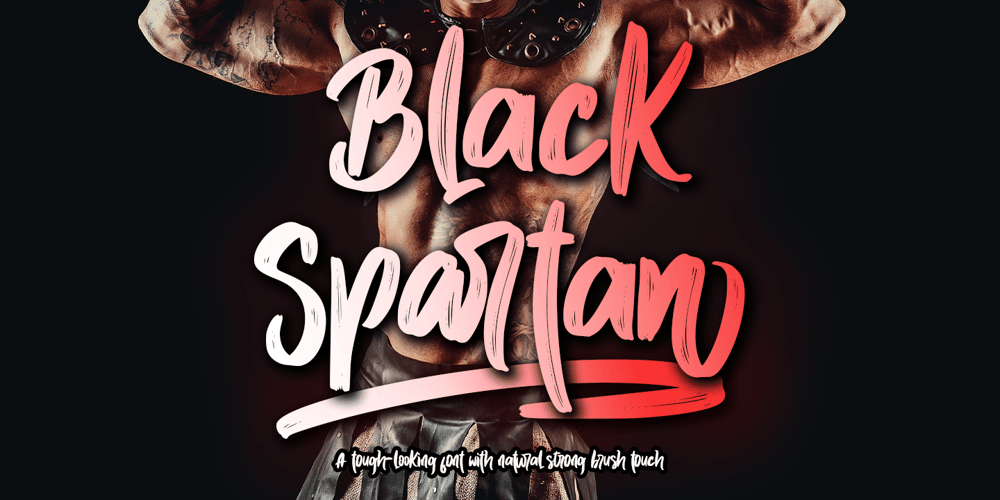
Black Spartan Font Family was designed by Thomas Aradea and published by Letterara. Black Spartan contains 1 styles and family package options. Black Spartan is a cool handwritten font with a personal charm. With quick dry strokes and a signature style, Black Spartan is perfect for branding projects, homeware designs, product packaging – or simply as a stylish text overlay to any background image. This font is PUA encoded which means you can access all of the glyphs and swashes with ease!